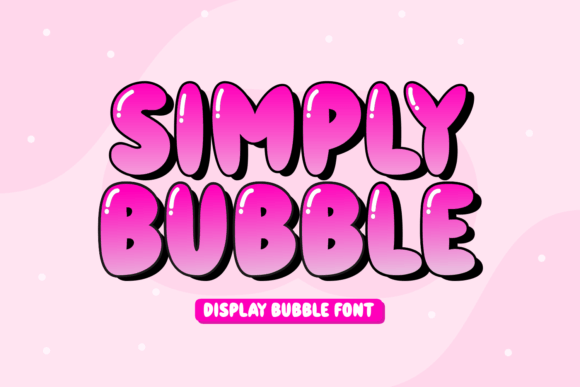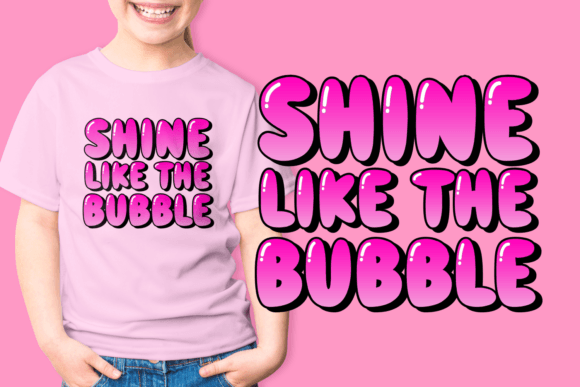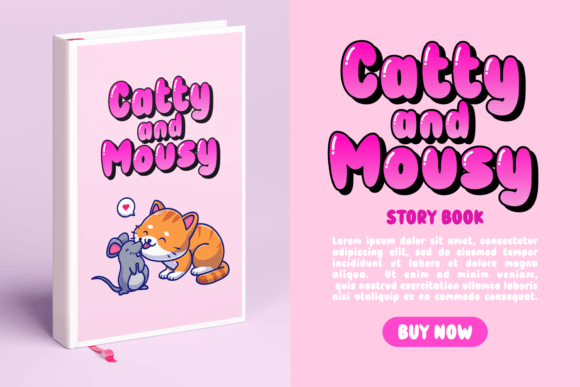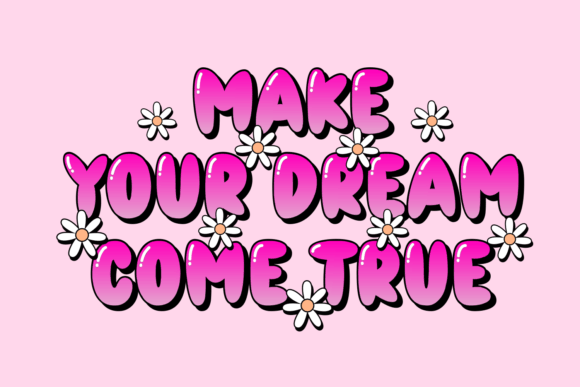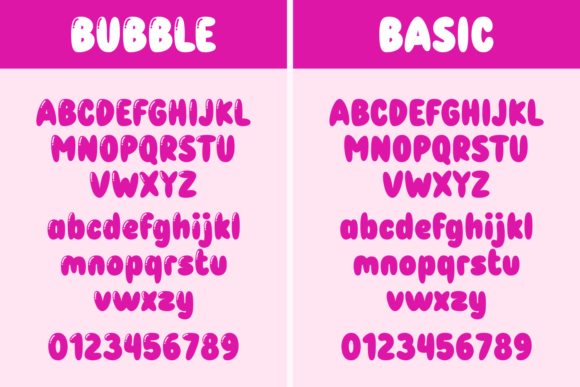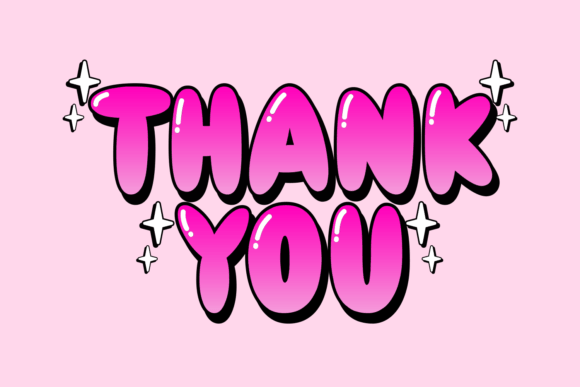
Simply Bubble Font
Simply Bubble is a joyful and whimsical display font that brings a playful touch to any project. With its bubbly letterforms and lively curves, this font is perfect for adding a dose of cheer to invitations, greeting cards, and children’s designs. Its versatility and friendly character make it an excellent choice for creating a delightful and memorable visual experience.